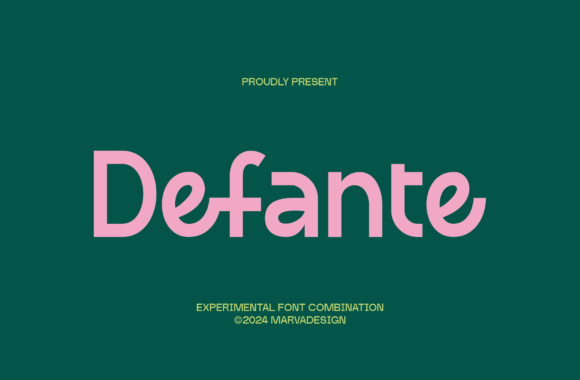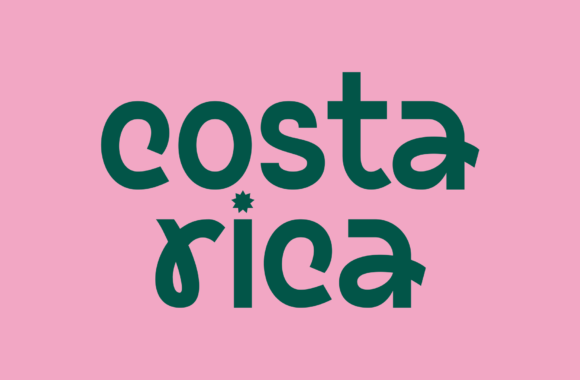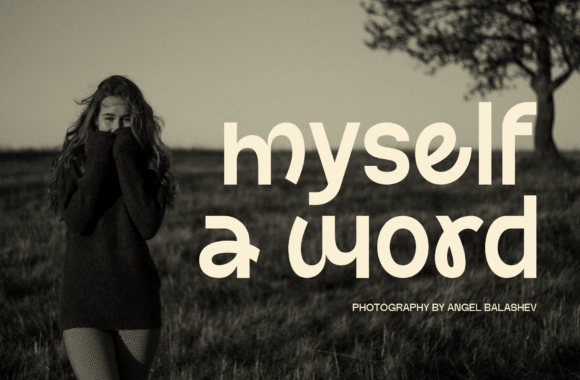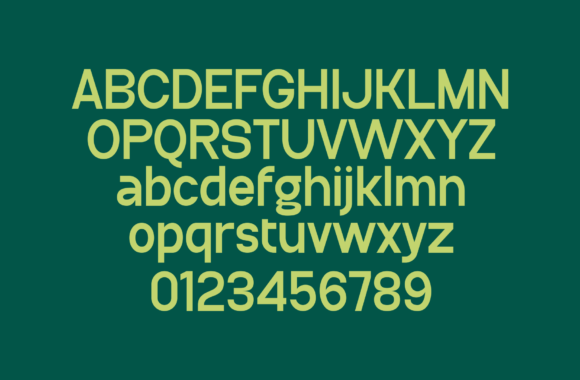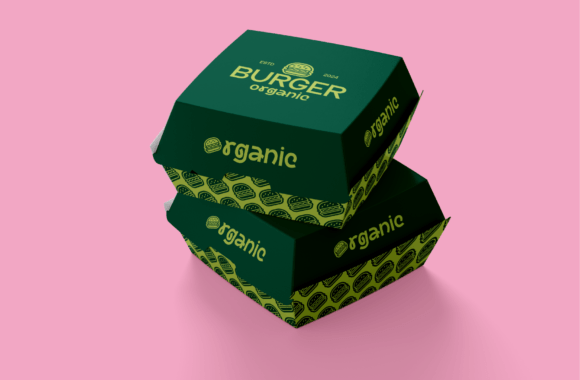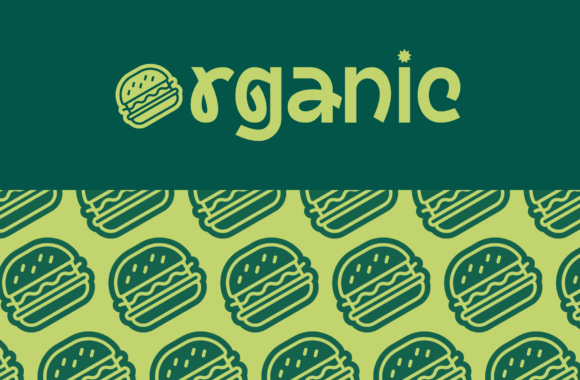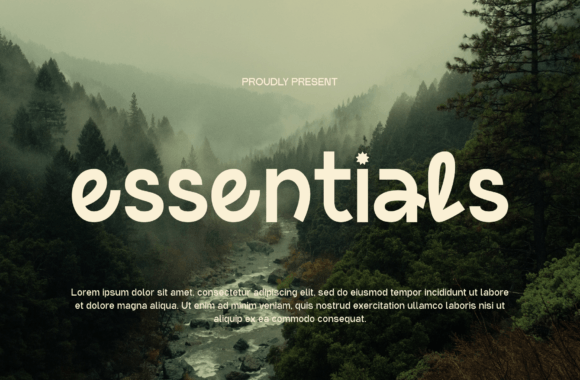
The Birth of a New Design Era: Introducing Defante Font
As designers, we’ve all been there – staring at a blank canvas, trying to bring a brand to life with just the right font. The moment of truth arrives when you finally find that perfect combination of style and substance, and it’s like the entire design falls into place. For those seeking a modern and elegant sans-serif font that exudes sophistication, look no further than Defante Font.
Defante Font is more than just a font – it’s a reflection of your brand’s personality. Its unique blend of clean lines and semi-handwritten style elements creates a distinctive character that sets it apart from other fonts. With its high level of readability and versatility, Defante Font is the perfect choice for designers looking to create a professional and individualized brand identity.
Defante Font Key Features
- Font Family: Defante is a sans-serif font family designed for digital use. It is available in several weights, from Light to Bold.
- Character Set: Defante Font supports a wide range of languages, including Latin, Cyrillic, and Greek alphabets.
- Unique Characteristics: Defante Font features a clean and modern design, with a focus on legibility and readability. Its geometric shapes and open forms make it suitable for use in a variety of contexts, from corporate branding to digital interfaces.
Defante Font Review
Overall, I was impressed with the Defante font. Its unique blend of modern and vintage elements makes it perfect for creating eye-catching designs.
- ✨ The font’s bold and playful personality is perfect for creating attention-grabbing headlines.
- ✨ The font’s versatility makes it suitable for a wide range of designs, from posters to logos.
- ✨ The font’s subtle texture adds a nice touch of sophistication to designs.
- ⚠️ The font may be too bold for some designs, so be careful not to overuse it.
- ⚠️ The font’s texture may not be suitable for designs that require a lot of fine details.
- ⚠️ The font’s uniqueness may make it difficult to pair with other fonts.
Overall, I would recommend the Defante font to designers who are looking for a bold and eye-catching font to add some personality to their designs.
Use the Defante font to create visually appealing headings and titles. Pair it with a clean and simple font for body text to create a balanced design. Experiment with different font sizes and styles to create a unique look.
The Defante font is perfect for creating modern and sleek designs. Use it for branding materials, such as business cards and letterheads, or for creating visually appealing presentations and reports.